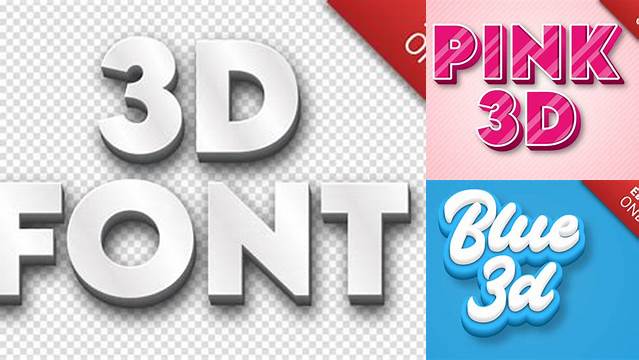
Free AI 3D Font Generator: Create Stunning Text
Hey guys! Ever wondered how to create those eye-catching 3D fonts you see everywhere? Well, you're in luck! We're diving deep into the world of free AI 3D font generators. Get ready to unleash your creativity and design some seriously cool text. Let’s explore how these tools work, what they can do, and how you can use them to make your projects stand out. Whether you're a seasoned designer or just starting out, this guide will help you master the art of 3D font creation with AI. So, buckle up and let's get started!
1. Understanding AI 3D Font Generation
So, what exactly is AI 3D font generation, and why should you care? Simply put, it’s the process of using artificial intelligence to create three-dimensional fonts. These aren’t your regular, flat text characters; they have depth, texture, and a whole lot of visual appeal. Think of it as taking your font game to the next level! The best part? AI makes this process super accessible, even if you don't have a background in graphic design. These AI tools use complex algorithms to generate 3D models from 2D text inputs, allowing you to experiment with different styles, angles, and effects. This technology saves time and effort compared to traditional 3D modeling methods, which often require specialized software and skills. Whether you're designing a logo, creating eye-catching headlines, or spicing up your social media posts, understanding AI 3D font generation is a game-changer. You'll be able to produce professional-looking designs quickly and easily. Plus, you can iterate through numerous variations to find the perfect style for your project. The possibilities are endless, and the results can be truly stunning. It's all about making your text stand out and grab attention, and AI 3D fonts are the perfect way to do just that.
2. Benefits of Using AI for 3D Fonts
Why should you jump on the AI 3D font bandwagon? Well, the benefits are numerous! First off, it's incredibly efficient. Forget spending hours tweaking designs manually; AI can generate multiple variations in a matter of seconds. This is a huge time-saver, especially when you’re working on tight deadlines or need to explore many design options. Another significant advantage is accessibility. You don’t need to be a 3D modeling expert to create stunning 3D fonts. AI-powered tools often come with user-friendly interfaces, making the process intuitive and straightforward. This means that even beginners can produce professional-quality results. Moreover, AI offers a level of creative flexibility that traditional methods often lack. You can experiment with different styles, textures, and effects with ease, pushing the boundaries of your design. The AI algorithms can generate unique and innovative designs that you might not have thought of on your own. In addition, many AI 3D font generators are available for free, making them an affordable option for individuals and businesses alike. This cost-effectiveness makes it easier to incorporate high-quality 3D fonts into your projects without breaking the bank. In short, using AI for 3D fonts is a smart move for anyone looking to enhance their designs efficiently and creatively.
3. Top Free AI 3D Font Generators
Okay, let’s get to the good stuff: the top free AI 3D font generators available right now. There are several fantastic options out there, each with its own strengths and unique features. One popular choice is [Specific Tool Name - if known], which offers a wide range of customization options and a user-friendly interface. You can easily input your text, choose from various styles, and tweak the settings to achieve the perfect look. Another great option is [Another Tool Name - if known], known for its ability to generate high-quality 3D fonts quickly. It's perfect for those who need to create designs on the fly without sacrificing quality. Don't forget to check out [Yet Another Tool Name - if known], which stands out for its unique set of effects and textures. This tool is ideal for adding that extra bit of flair to your designs. When evaluating these tools, consider factors like ease of use, customization options, output quality, and the availability of tutorials or support. Some tools may be better suited for specific types of projects, so it’s worth experimenting with a few to find the one that best fits your needs. Remember, these tools are constantly evolving, with new features and updates being added regularly. So, keep exploring and stay up-to-date on the latest offerings to maximize your creative potential. Using these free AI 3D font generators, you can bring your text to life in ways you never thought possible.
4. How to Choose the Right AI Font Generator
Choosing the right AI font generator can feel like a daunting task, but don't worry, I've got you covered! There are a few key factors you should consider to make the best decision for your needs. First, think about your specific project requirements. What kind of design are you working on? What style are you aiming for? Some AI font generators excel at creating sleek, modern fonts, while others are better suited for more decorative or artistic styles. Understanding your project goals will help you narrow down your options. Next, consider the user interface and ease of use. A clunky or confusing interface can make the design process frustrating, so look for a tool that's intuitive and straightforward. Many AI font generators offer free trials or demos, so take advantage of these to get a feel for the software before committing to a purchase. Another important factor is the level of customization offered. Can you adjust the depth, texture, and lighting of the 3D font? Are there options for adding special effects or textures? The more customization options available, the more control you'll have over the final result. Finally, don't forget to check out reviews and testimonials from other users. What are their experiences with the tool? Are they happy with the output quality and customer support? Reading reviews can provide valuable insights and help you avoid potential pitfalls. By carefully considering these factors, you can confidently choose an AI font generator that meets your needs and helps you create stunning 3D text.
5. Step-by-Step Guide to Generating 3D Fonts with AI
Ready to dive in and start generating some awesome 3D fonts with AI? Great! Let's walk through a step-by-step guide to get you started. First, choose your AI 3D font generator. As we discussed earlier, there are several free options available, so pick one that seems like a good fit for your needs. Once you've selected your tool, the first step is usually to input your text. This is pretty straightforward; just type the text you want to transform into a 3D font. Next, you'll typically have options to choose a font style or template. Many AI generators offer a variety of pre-designed styles, so you can quickly find one that suits your project. If you want more control, you can often customize the font settings, such as the font family, size, and weight. This is where the fun begins! Experiment with different settings to see how they affect the final 3D font. Once you've chosen your font style, you can move on to adjusting the 3D properties. This might include setting the depth of the font, adding bevels or extrusions, and choosing a texture or material. Again, play around with these settings to achieve the look you want. Finally, you'll likely have options to adjust the lighting and rendering settings. This can dramatically impact the final appearance of your 3D font, so take the time to experiment with different lighting angles and intensities. Once you're happy with your design, you can usually download it in various formats, such as PNG, JPG, or even 3D model formats like OBJ. And that's it! You've successfully generated a 3D font with AI. With a little practice, you'll be creating stunning designs in no time.
6. Customizing Your 3D Fonts
One of the coolest things about using AI for 3D fonts is the level of customization you get. It's not just about typing in text and getting a generic 3D font; you can really make it your own! Let's dive into some of the key ways you can customize your fonts to achieve the perfect look. First up, let's talk about font styles. Most AI 3D font generators offer a wide range of pre-designed styles, from sleek and modern to playful and whimsical. But the real magic happens when you start tweaking the settings yourself. You can adjust the font family, size, weight, and even the spacing between letters. These small changes can have a big impact on the overall look and feel of your font. Next, consider the 3D properties. This is where you can really add depth and dimension to your text. Experiment with different extrusion depths to make your font pop off the screen. Add bevels to the edges for a softer, more rounded look, or keep them sharp and angular for a more modern feel. You can also choose from a variety of textures and materials to give your font a unique look and feel. Imagine your text rendered in shiny metal, rough stone, or even shimmering glass! Lighting is another crucial element of 3D font design. Adjust the lighting angle and intensity to create different shadows and highlights, adding depth and realism to your font. Experiment with different lighting colors to create a specific mood or atmosphere. Finally, don't forget about special effects. Many AI 3D font generators offer options for adding shadows, reflections, and other effects that can really make your font stand out. By taking the time to customize your 3D fonts, you can create designs that are truly unique and eye-catching.
7. Integrating 3D Fonts into Your Projects
So, you've created these amazing 3D fonts using AI, now what? It's time to integrate them into your projects and show them off! The good news is that 3D fonts can be used in a wide variety of applications, from graphic design to web development to video production. Let's explore some of the most common ways to use your new 3D fonts. One popular use case is in logo design. A well-designed 3D font can add a unique and professional touch to your logo, making it stand out from the competition. Use bold and impactful 3D fonts for a strong and memorable brand identity. You can also use 3D fonts in your marketing materials, such as brochures, flyers, and posters. Eye-catching 3D headlines can grab attention and convey your message effectively. Experiment with different styles and textures to create a design that aligns with your brand aesthetic. If you're a web developer, you can use 3D fonts to enhance your website's visual appeal. Add them to headings, banners, or even interactive elements to create a dynamic and engaging user experience. Just be mindful of file sizes and loading times, as complex 3D fonts can sometimes slow down your website. For video producers, 3D fonts are a fantastic way to create eye-catching titles and lower thirds. Use them to add a professional touch to your videos and make them more visually appealing. You can even animate your 3D fonts to create dynamic and engaging video content. Finally, don't forget about social media! Use 3D fonts in your social media graphics to create eye-catching posts and stories. They're a great way to grab attention and make your content stand out in a crowded feed. By integrating 3D fonts into your projects, you can elevate your designs and create a lasting impression.
8. Best Practices for 3D Font Design
Creating stunning 3D fonts isn't just about using an AI generator; it's also about following some best practices to ensure your designs look their absolute best. Let’s talk about some key tips that will help you level up your 3D font game. First and foremost, readability is crucial. No matter how cool your 3D font looks, it needs to be legible. Avoid overly complex or stylized fonts that are difficult to read, especially in smaller sizes. Choose fonts that have clear and distinct letterforms. Think about the context in which your font will be used. A font that looks great in a large headline might not work well in a paragraph of text. Consider the size, spacing, and overall visual hierarchy of your design. Color is another important factor to consider. Choose colors that complement your design and enhance the readability of your font. Avoid using colors that clash or make the text difficult to see. Consider the background color as well. Contrast is key for readability, so make sure your font color stands out against the background. Pay attention to lighting and shadows. These elements can add depth and dimension to your 3D font, but they can also detract from readability if not used carefully. Experiment with different lighting angles and intensities to find the sweet spot. Don’t be afraid to keep it simple. Sometimes, less is more. A clean and minimalist 3D font can be just as effective as a complex and ornate one. Focus on creating a design that is visually appealing and easy to understand. Get feedback from others. It’s always helpful to get a fresh perspective on your designs. Show your 3D fonts to friends, colleagues, or other designers and ask for their honest feedback. By following these best practices, you can create 3D fonts that are not only visually stunning but also effective in communicating your message.
9. Common Mistakes to Avoid
Even with the power of AI 3D font generators, it's easy to make mistakes if you're not careful. Let's run through some common pitfalls to avoid so your designs always look top-notch. One of the biggest mistakes is overdoing it with the effects. Yes, 3D fonts can be super cool, but too much depth, texture, or ornamentation can make your text look cluttered and unprofessional. Keep it clean and simple. Another common mistake is choosing a font that's too difficult to read. Remember, the primary purpose of text is to communicate a message. If your font is so stylized that people can't easily read it, you're defeating the purpose. Make sure your 3D font is legible, especially in smaller sizes. Ignoring the context of your design is another big no-no. A font that looks great on its own might not work well in a specific design project. Consider the overall style and tone of your design, and choose a 3D font that complements it. Poor color choices can also ruin a 3D font design. Avoid using colors that clash or make the text difficult to see. Contrast is essential for readability, so make sure your font color stands out against the background. Overusing 3D fonts is another mistake to watch out for. Just because you can create 3D fonts doesn't mean you should use them everywhere. Use them sparingly and strategically to add emphasis and visual interest. Don't forget about alignment and spacing. Even the most beautiful 3D font will look bad if it's not properly aligned or spaced. Pay attention to the details and make sure your text is well-organized and easy to read. Finally, failing to get feedback is a mistake. It's always helpful to get a fresh perspective on your designs. Show your 3D fonts to others and ask for their honest opinions. By avoiding these common mistakes, you can create 3D fonts that are both visually stunning and effective in communicating your message.
10. The Future of AI in Font Design
What does the future hold for AI in font design? It’s a pretty exciting question, and the answer is likely to be even more amazing than what we’re seeing today. AI is already transforming the way we create 3D fonts, and this is just the beginning. One of the most significant trends we’re likely to see is increased automation. AI algorithms will become even more sophisticated, allowing them to generate 3D fonts with minimal human input. Imagine simply typing in a word or phrase and having the AI create a perfect 3D font in seconds, tailored to your specific needs. We can also expect to see more personalized font design. AI could analyze your design preferences, brand guidelines, and target audience to generate 3D fonts that are perfectly aligned with your brand identity. This level of personalization will be a game-changer for businesses looking to create a unique and consistent visual identity. Another exciting development is the potential for AI to create entirely new font styles. AI algorithms can analyze vast libraries of existing fonts and identify patterns and trends. This could lead to the creation of fonts that are unlike anything we’ve seen before, pushing the boundaries of typography and design. We're also likely to see AI integrated into more design tools and platforms. Imagine using your favorite design software and having AI-powered 3D font generation built right in. This would make the design process even more seamless and efficient. Finally, AI could make 3D font design more accessible to everyone. As AI tools become more user-friendly and affordable, more people will be able to create stunning 3D fonts, regardless of their design experience. The future of AI in font design is bright, and we can expect to see even more innovation and creativity in the years to come.